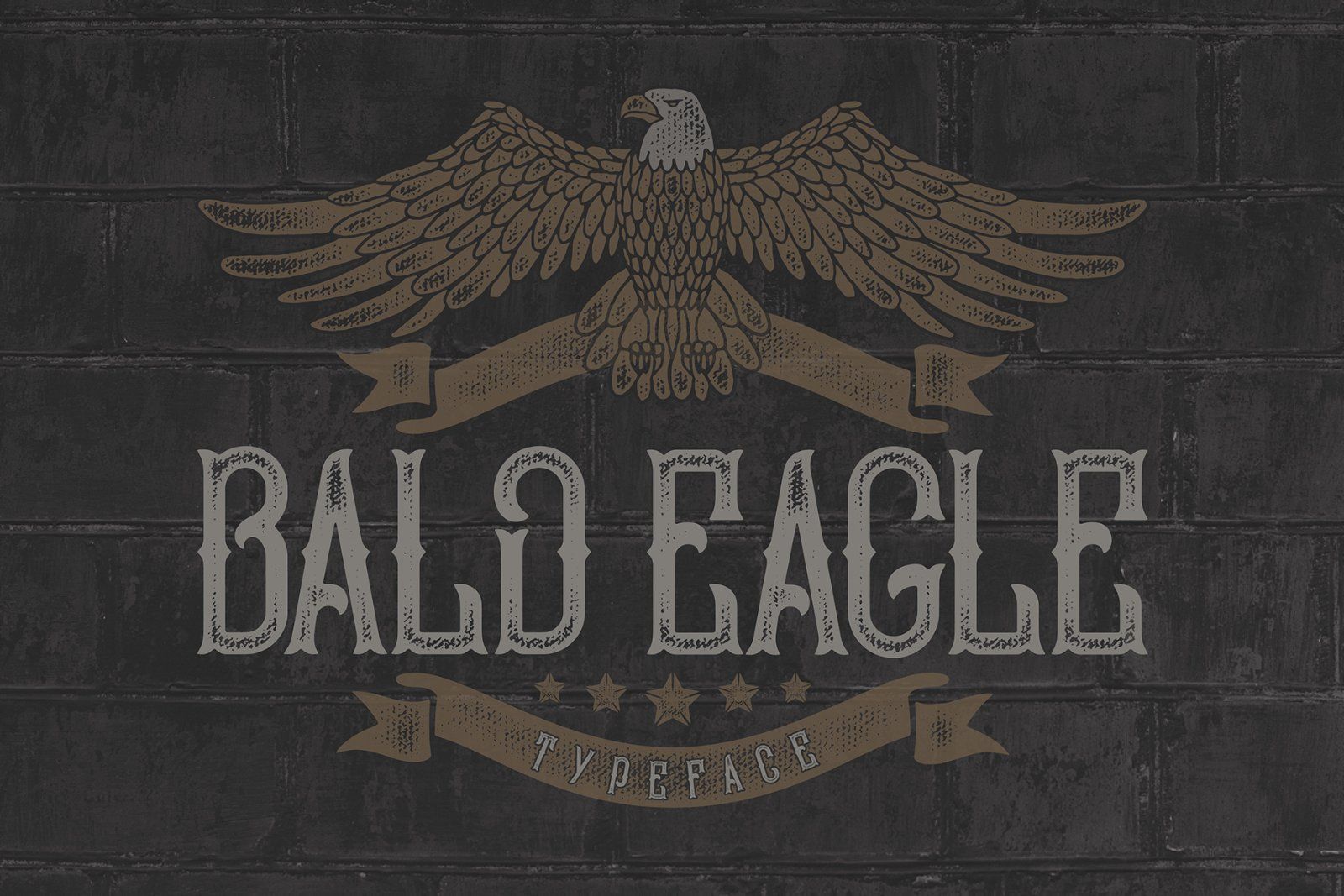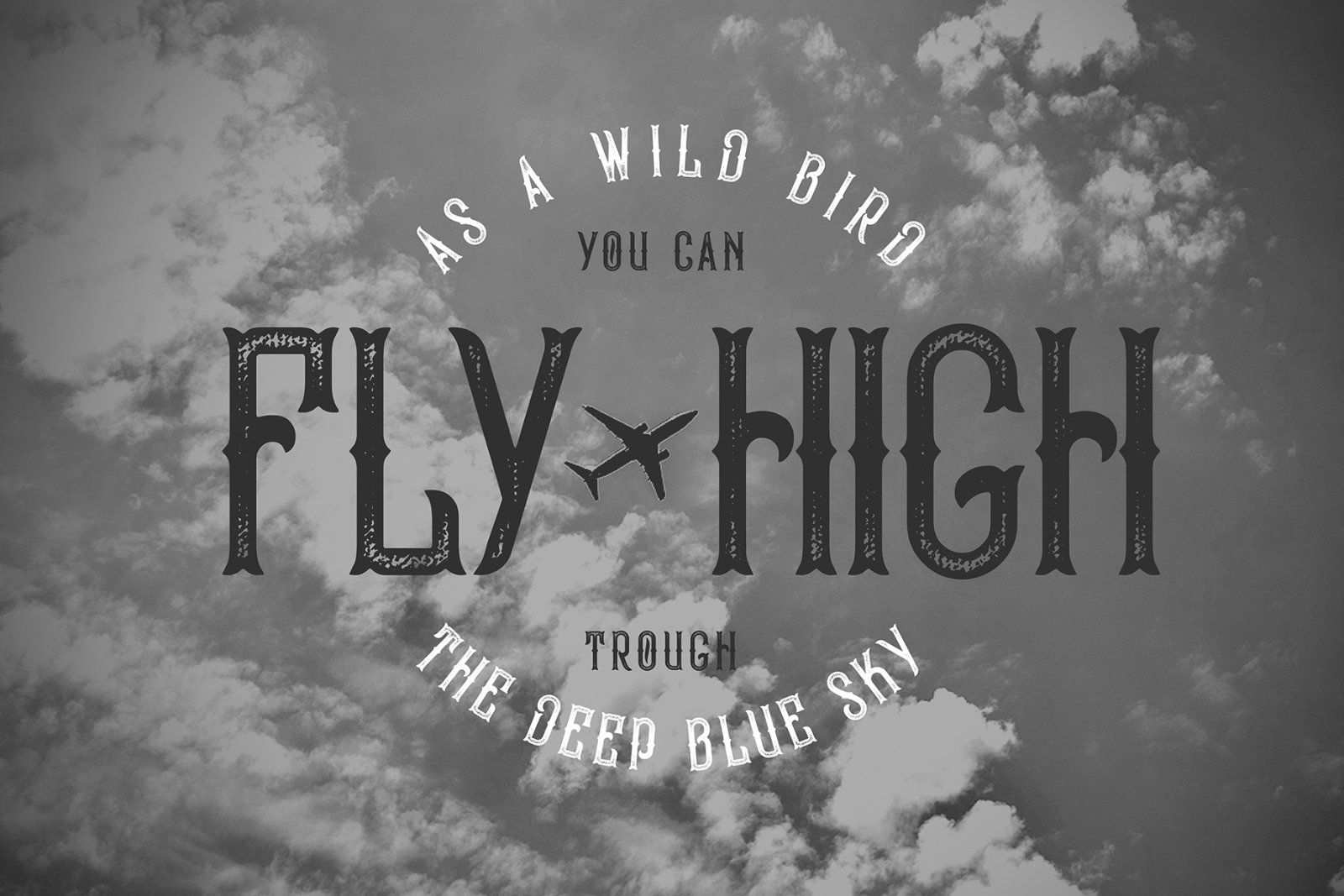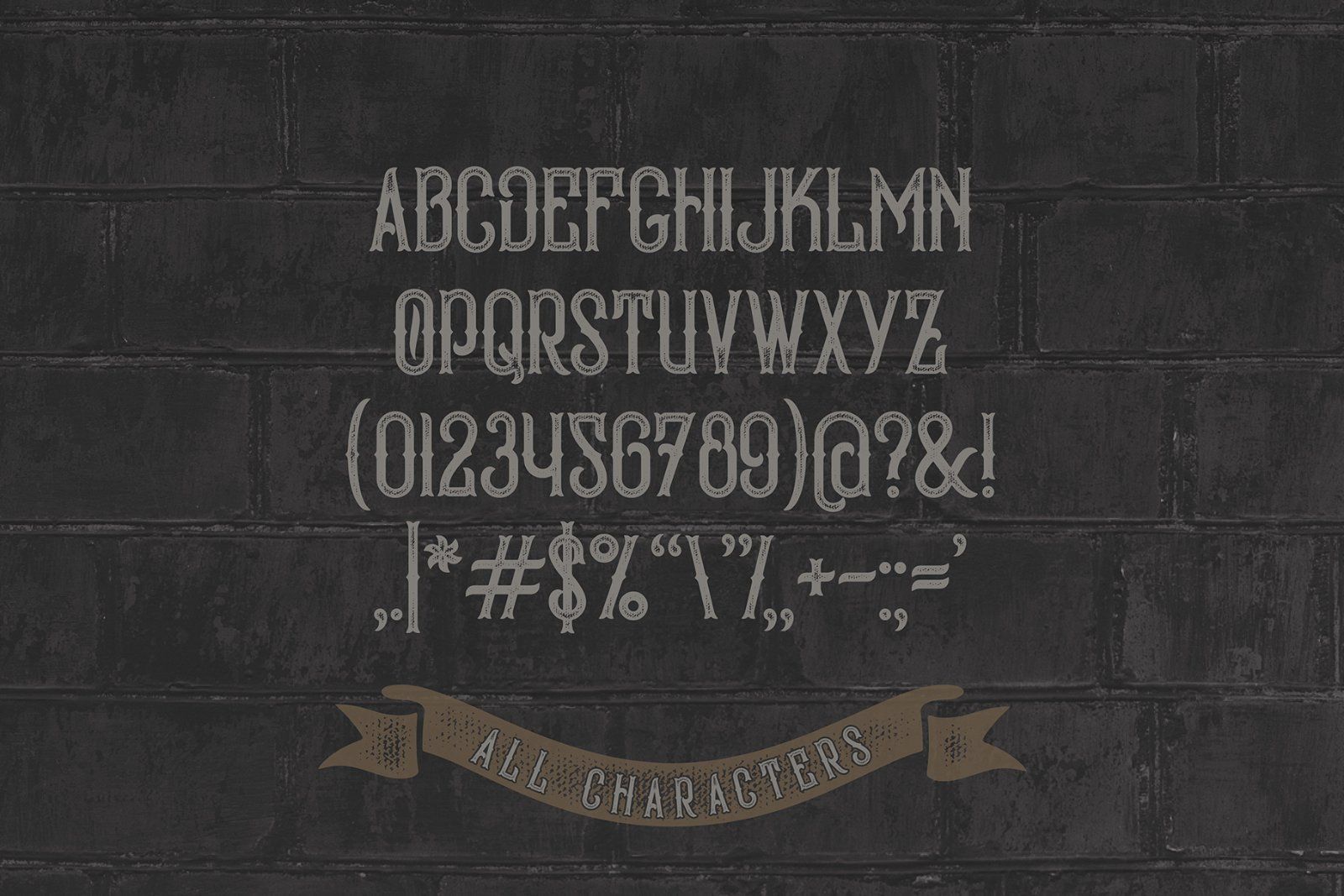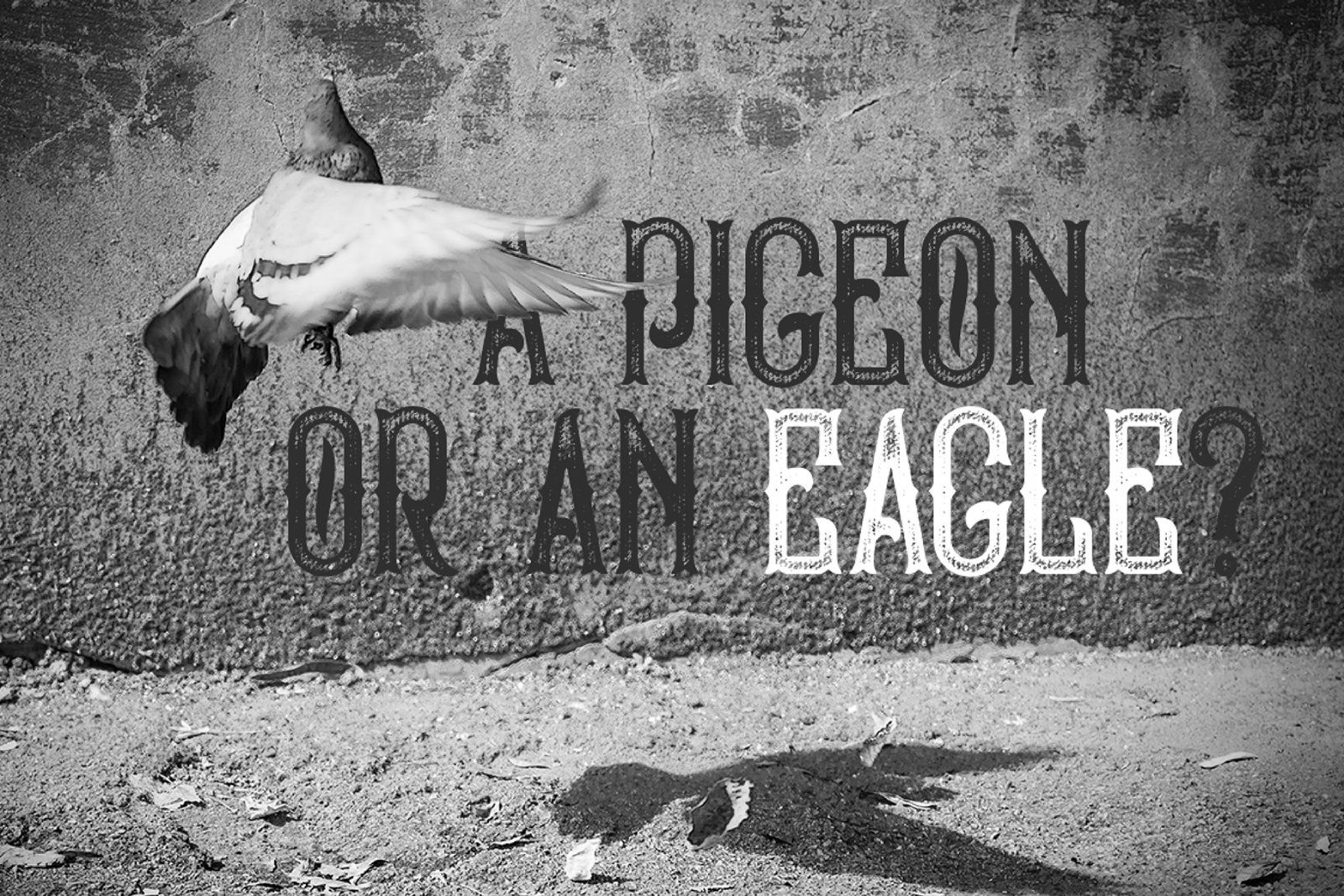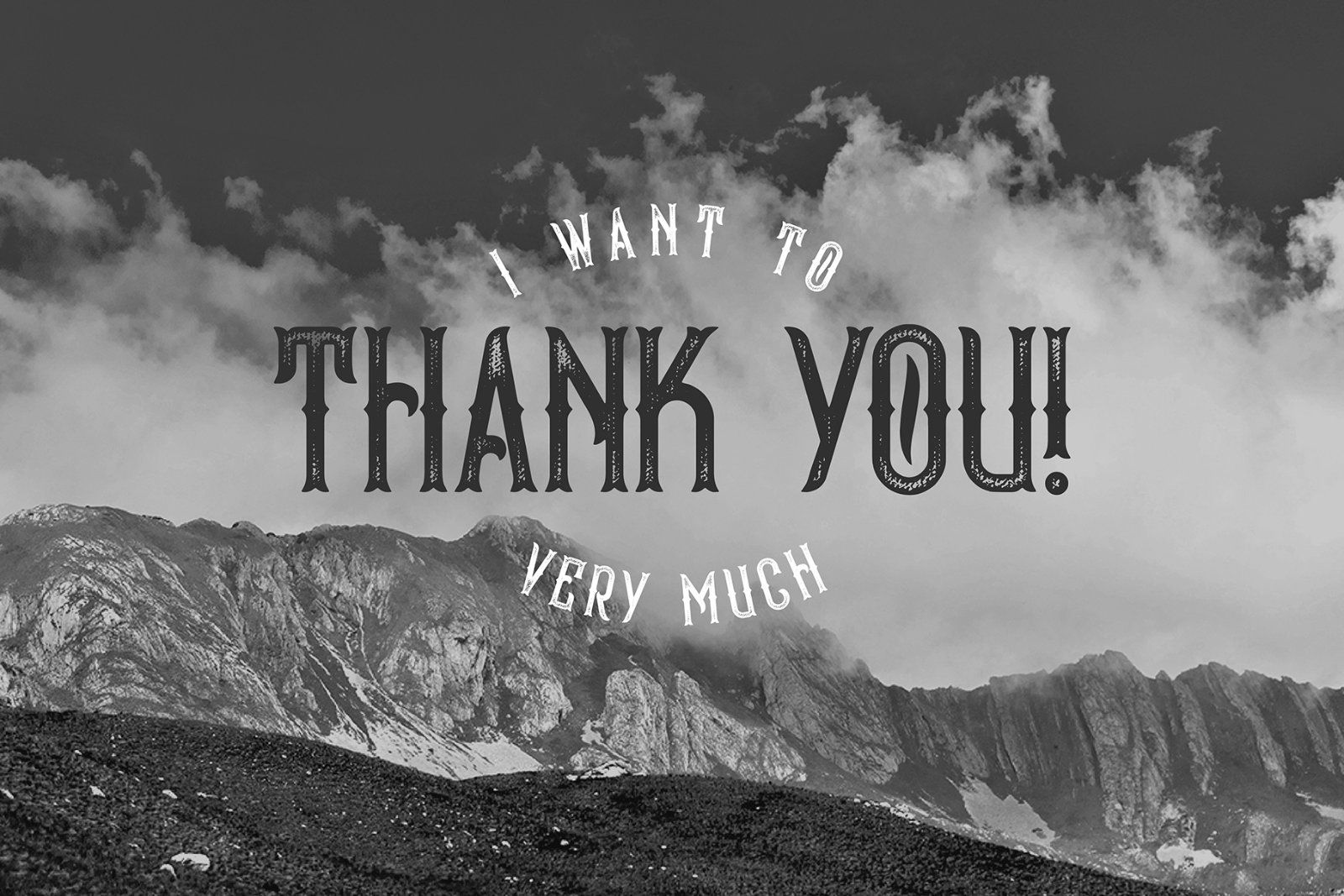
Hi! Introducing vintage font Bald Eagle. Stamp textured effect surface makes it really authentic look. As a bonus included an illustration of an eagle with a ribbon and stars from the first screenshot.
Note: This font contains only Latin characters (all available characters you can see on the third screenshot). Background photos are not included in this product.